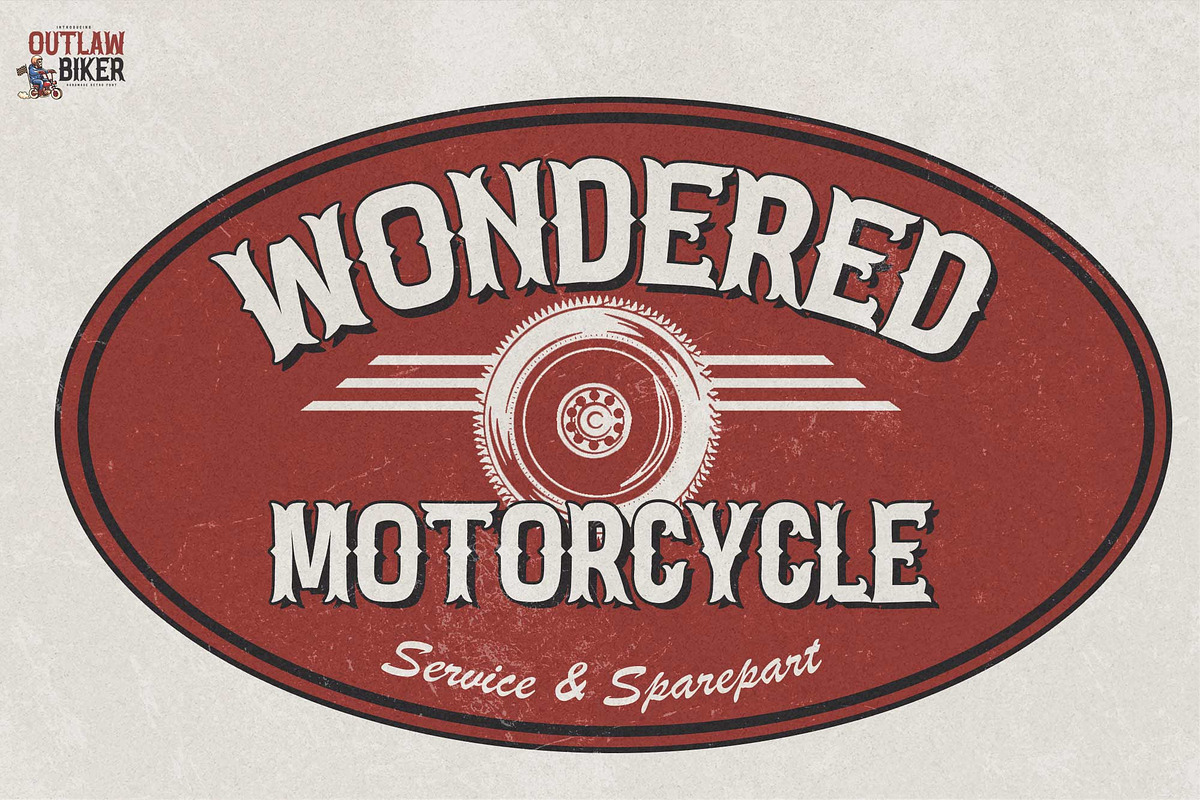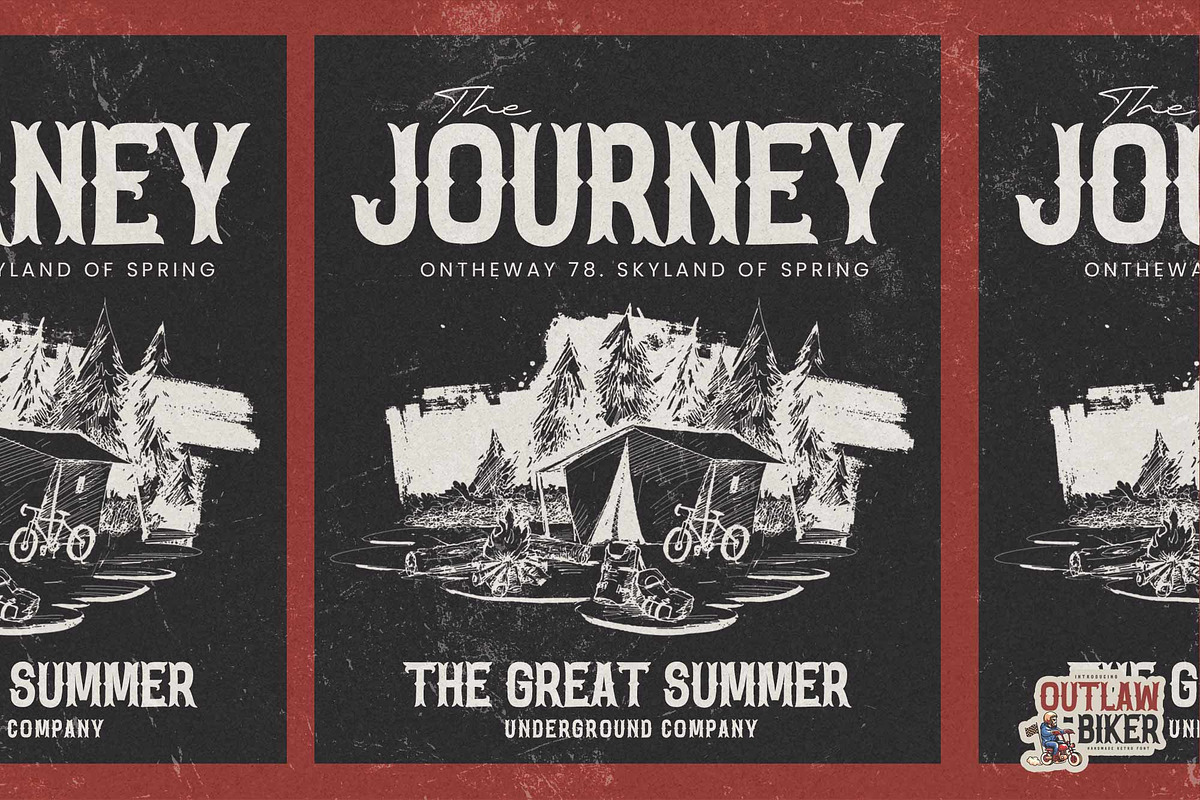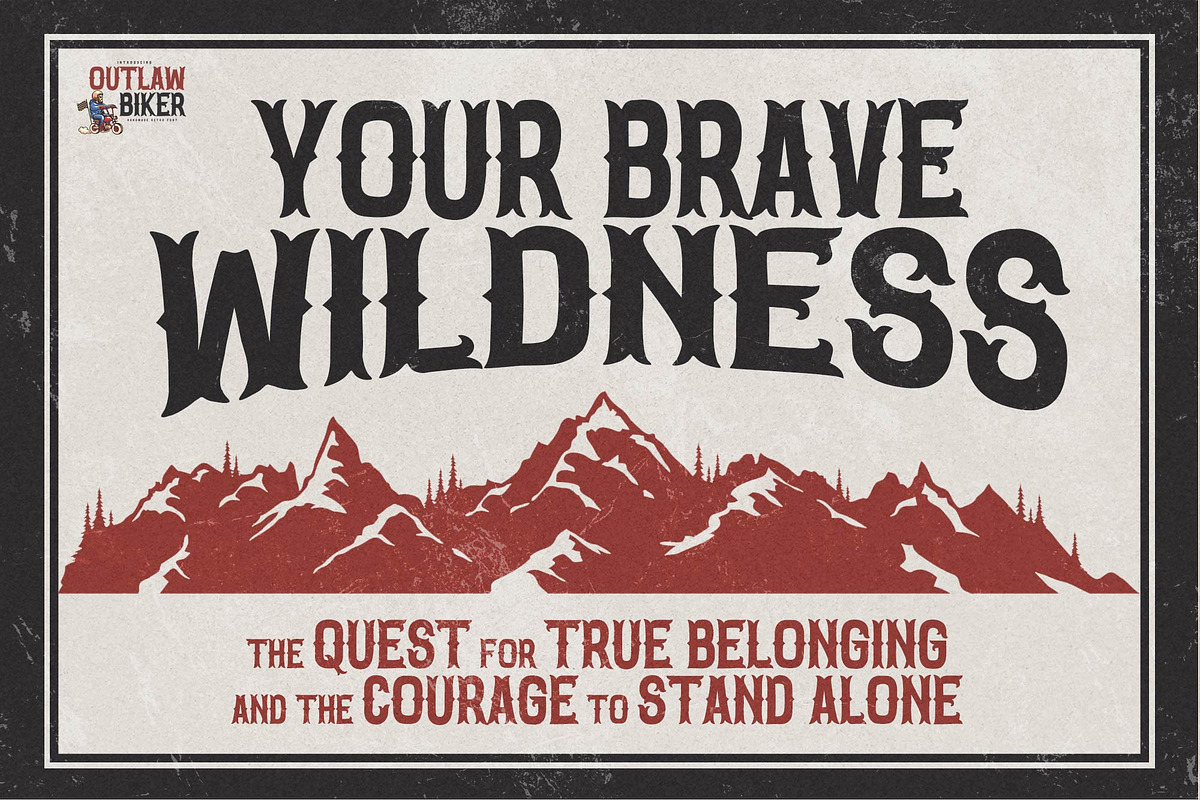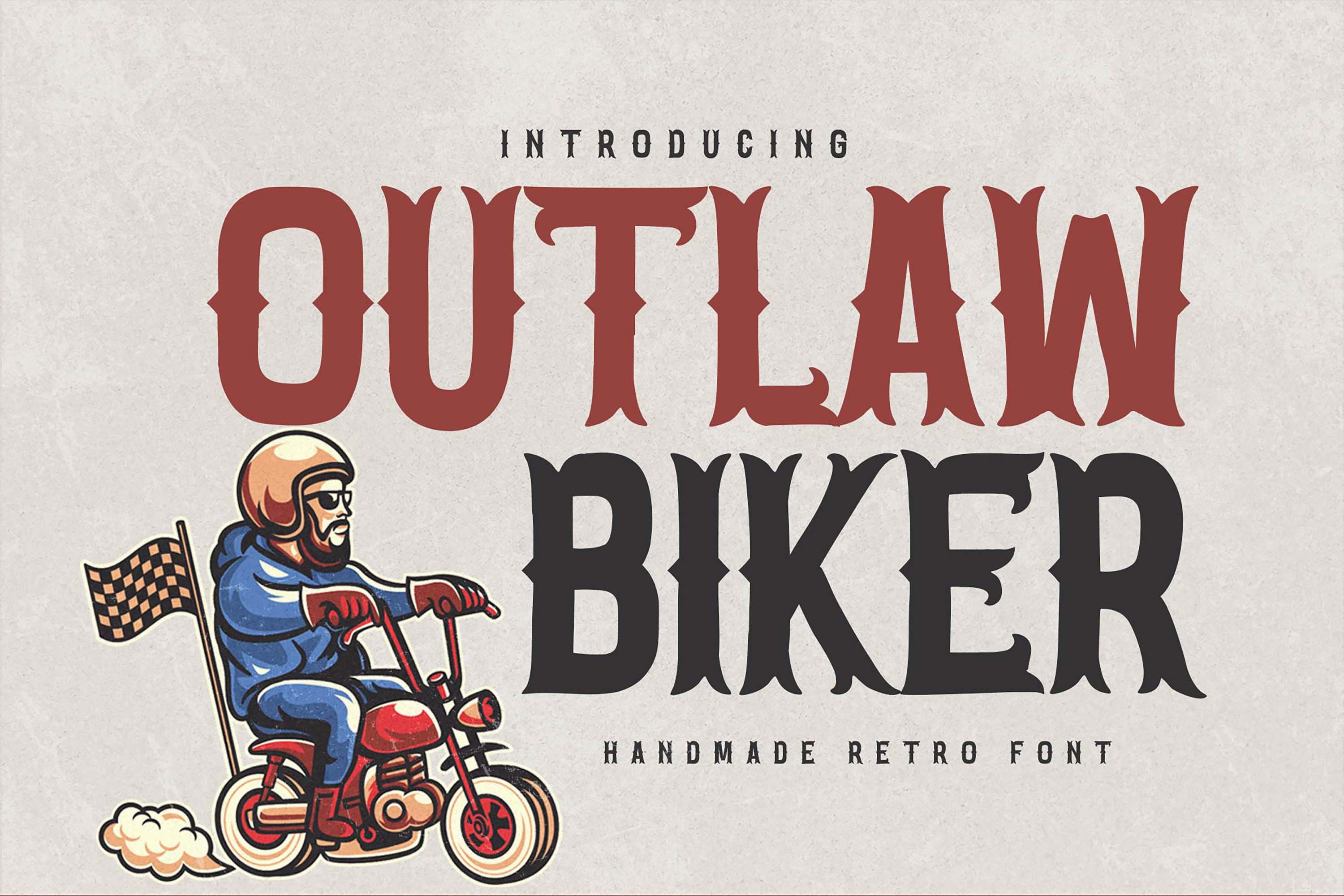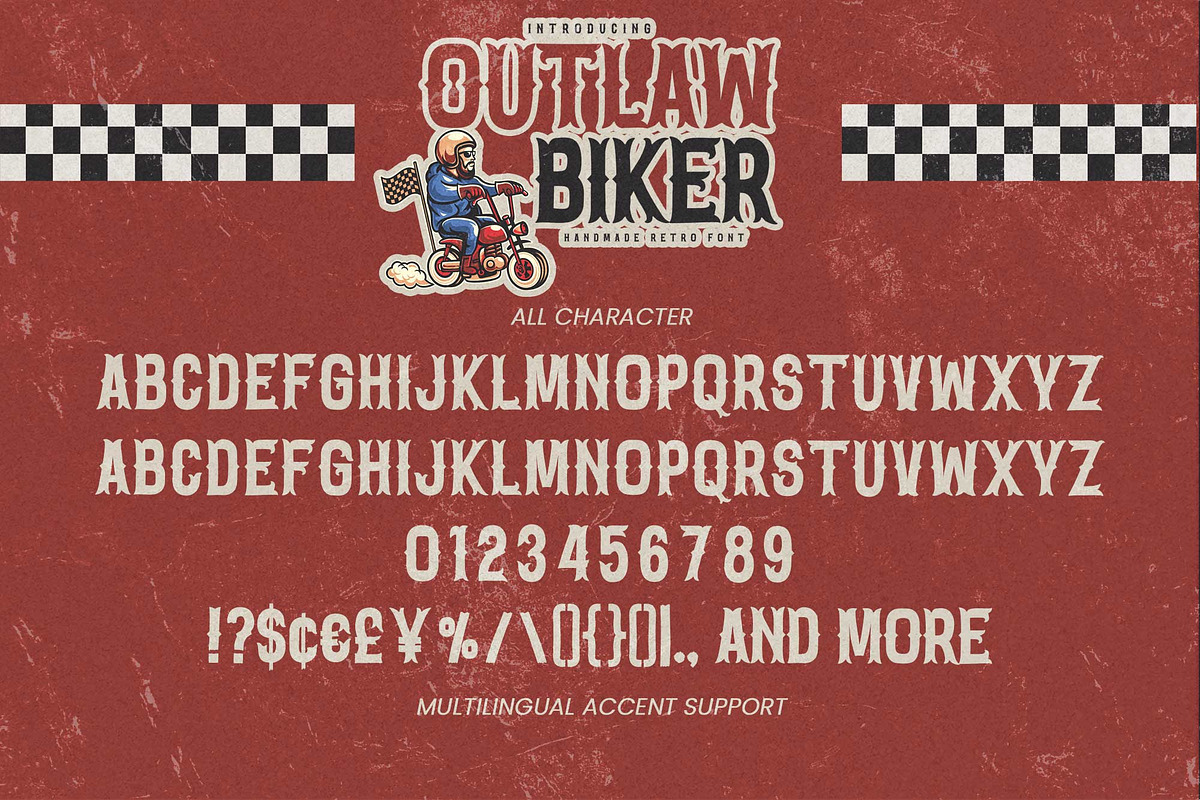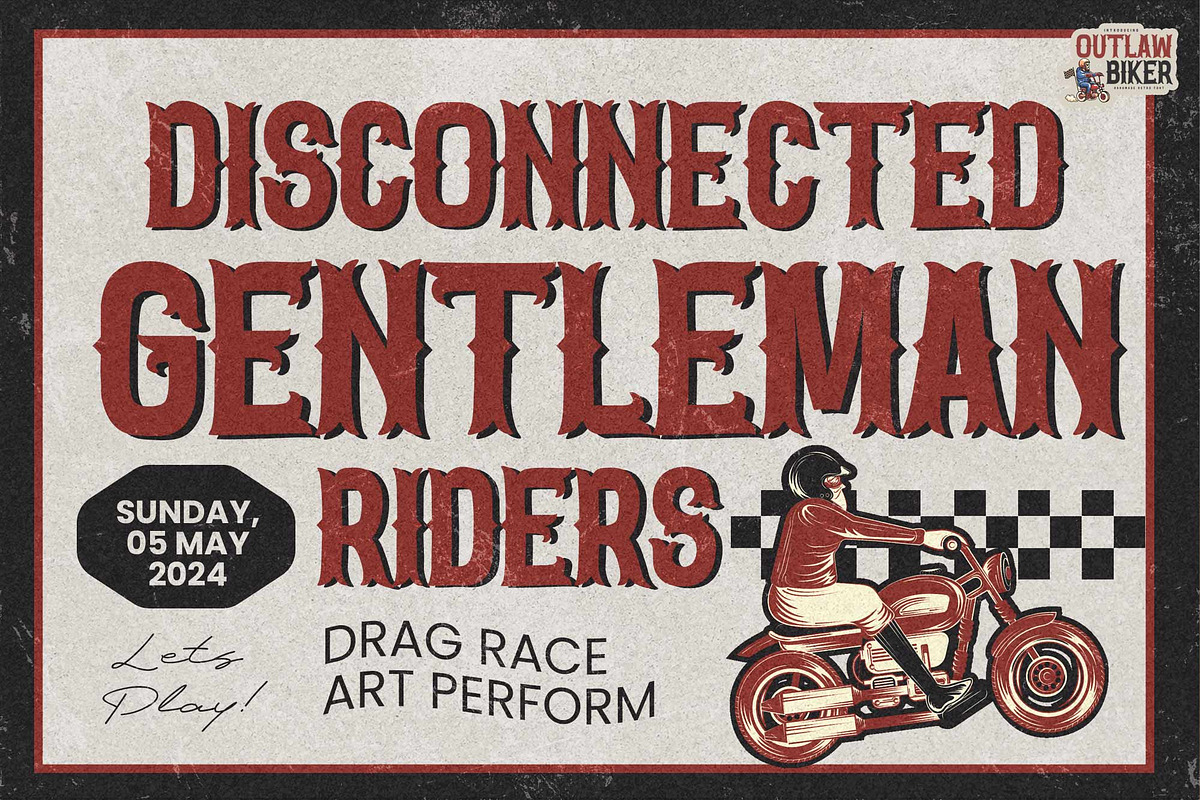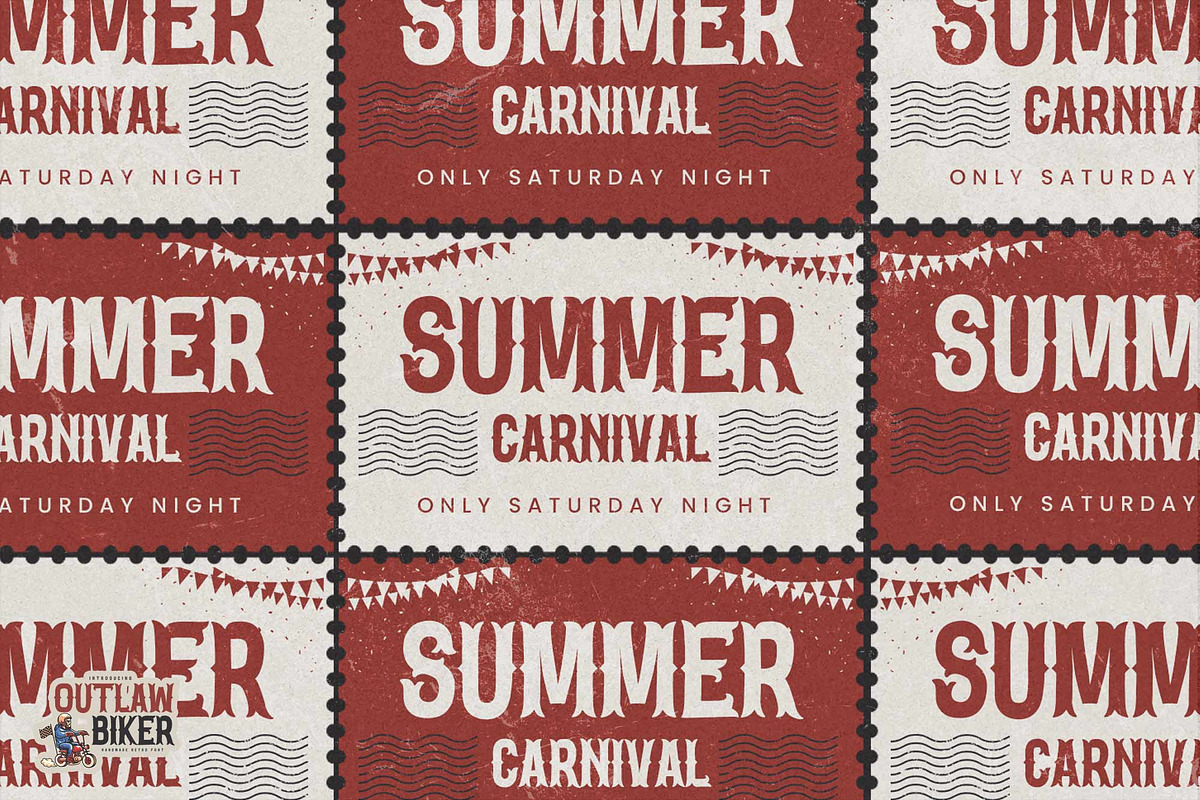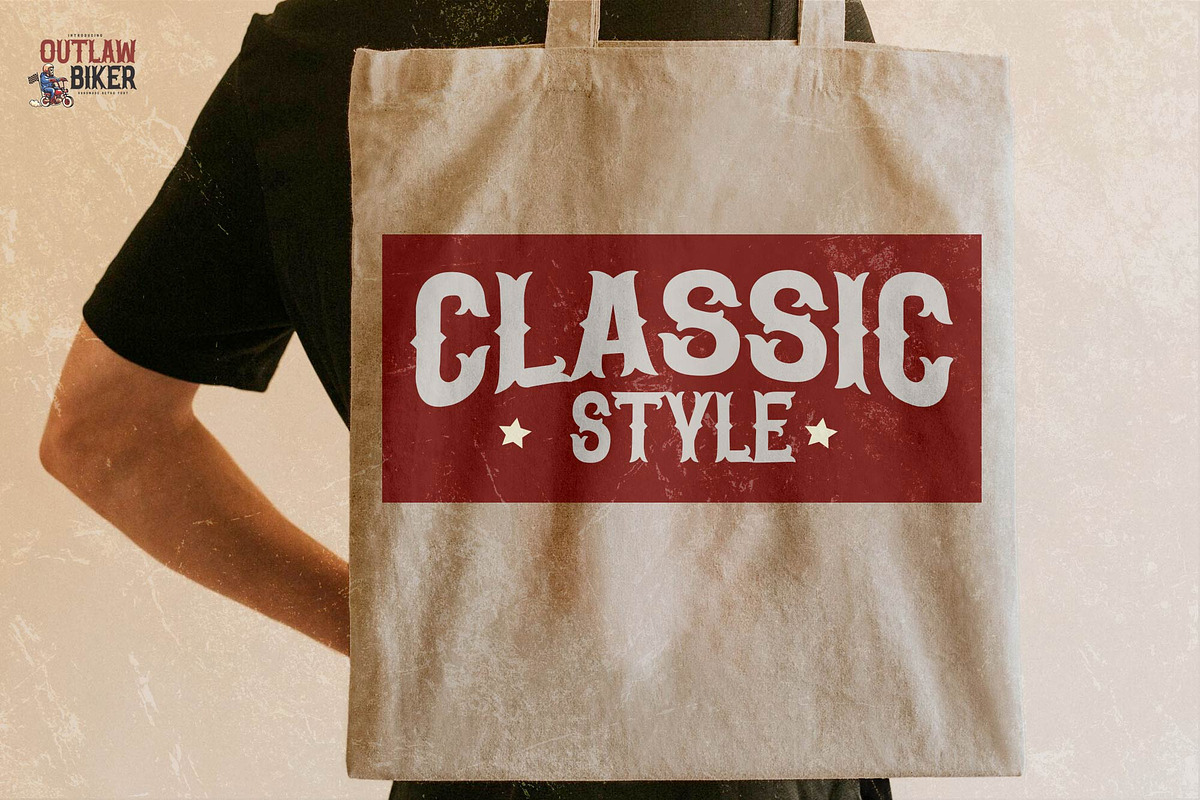
Outlaw Biker – Handmade Retro Font
Outlaw Biker -Handmade Retro Font, modern style and script that is written casually and quickly. The best for labels, poster, project designs look ,authentic and cool . It’s perfect for labels, quotes, posters, DIY projects, branding, packaging, greeting cards, websites, photography overlays, signs, scrapbooking, tags and so much more! That is why Outlaw Biker has a textured, and unique characteristic more natural look. You can activate Ligatures OpenType panel.